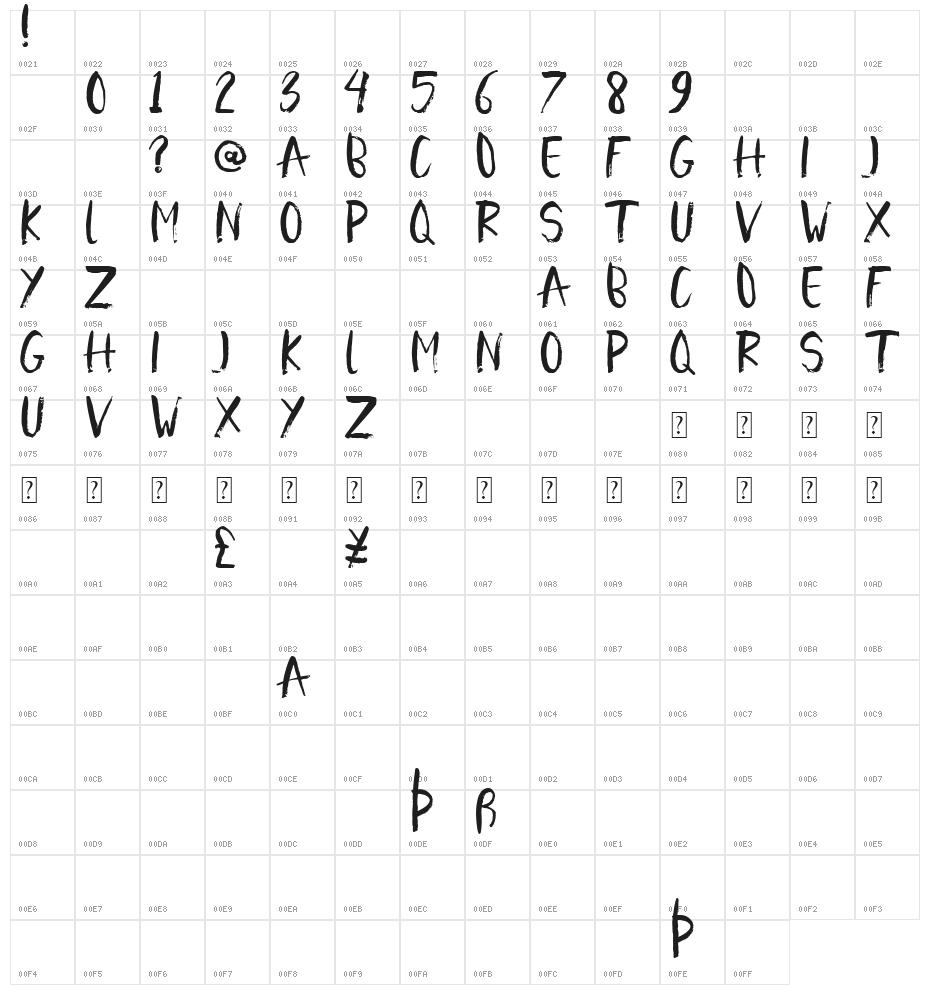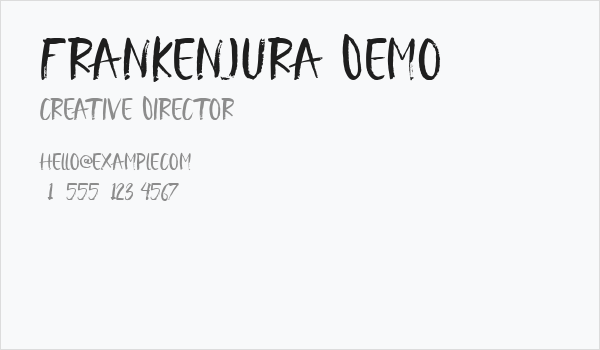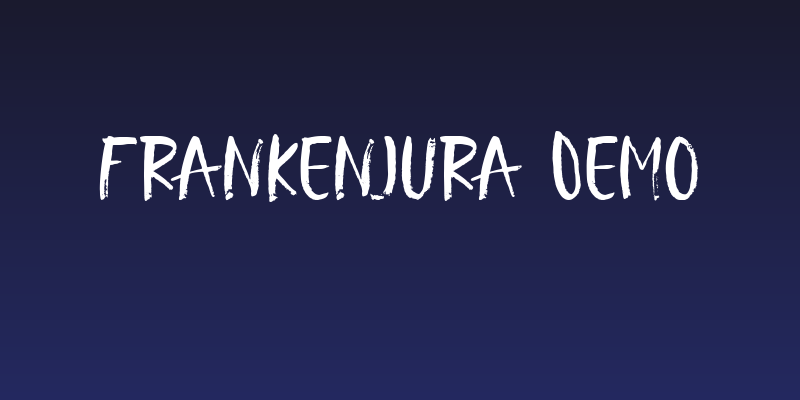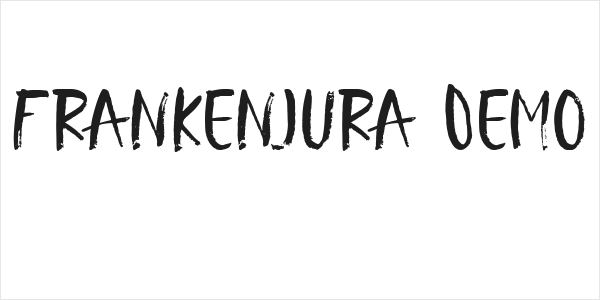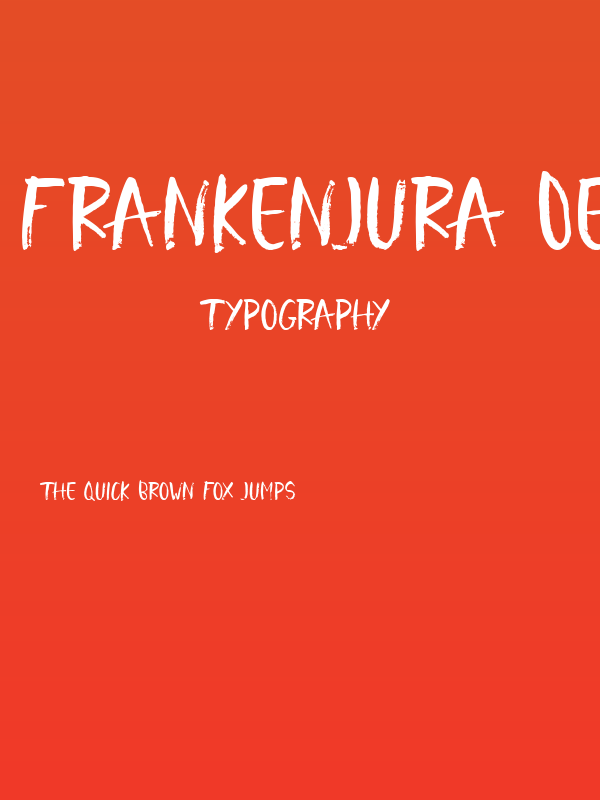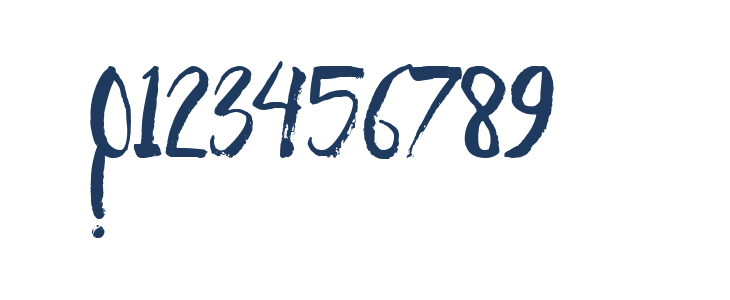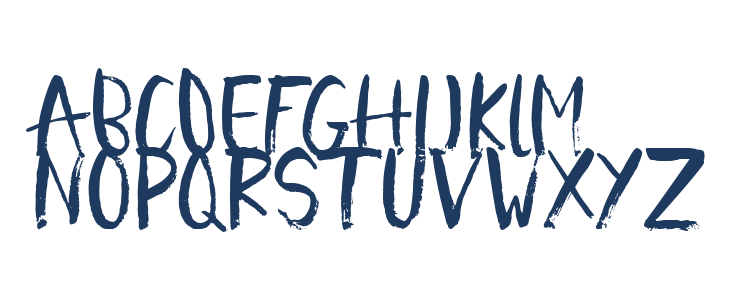
Frankenjura Demo Font
Frankenjura Demo Description
This font exhibits a bold, expressive style with a hand-painted appearance. The strokes are uneven and textured, giving it a raw, artistic feel. The characters are slightly irregular, adding to the font's dynamic and energetic personality. The uppercase and lowercase letters maintain a consistent style, with a noticeable brush-like texture that suggests movement and creativity. The numbers follow the same aesthetic, ensuring a cohesive look across all characters. This font is ideal for projects that require a bold statement or a creative, artistic touch.
| Overall Style | Artistic, Expressive |
| Proposed Projects | Ideal for posters, album covers, artistic branding, and creative advertising. |